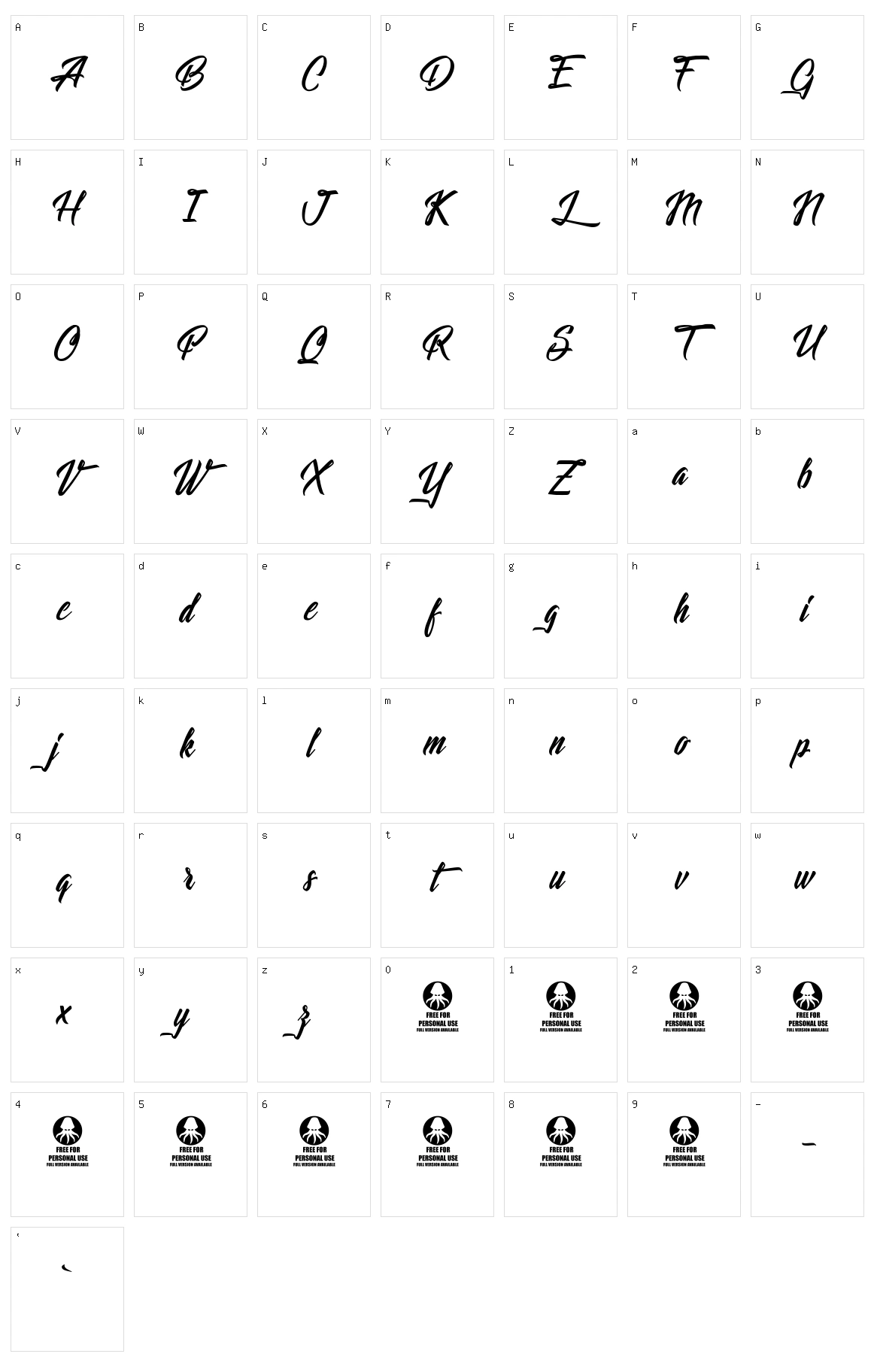
The free font Lights of the Stardust is carefully designed by Octotype | Thomas Boucherie, showcasing a thoughtful balance of creativity and usability and falls under the Script font style. When you download the ZIP file, it contains only 21.96 KB of font files, making it lightweight and quick to download. Please review the license details below to understand permitted usage and distribution rights. If license information is not available, we recommend using this font for personal projects only or contacting the author directly for commercial usage permissions.